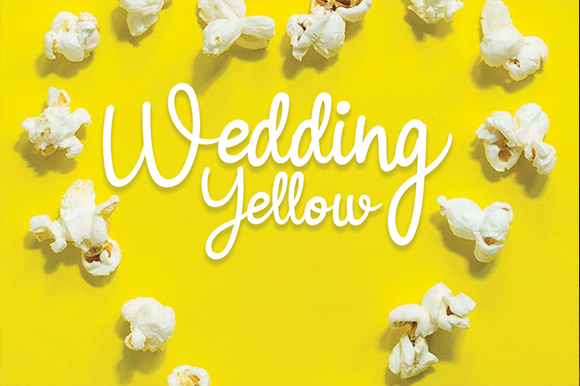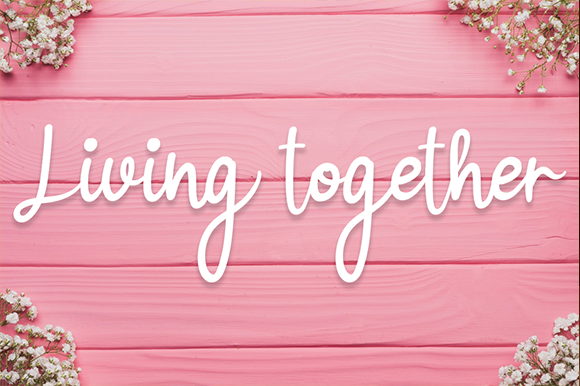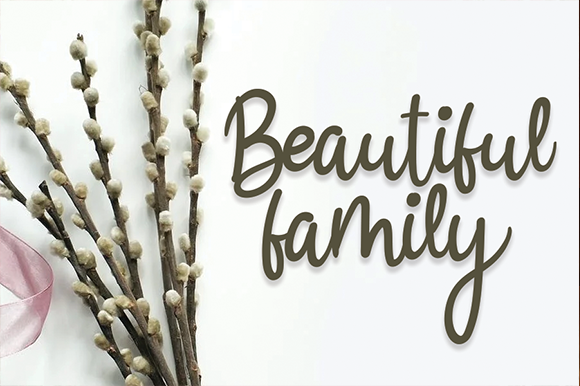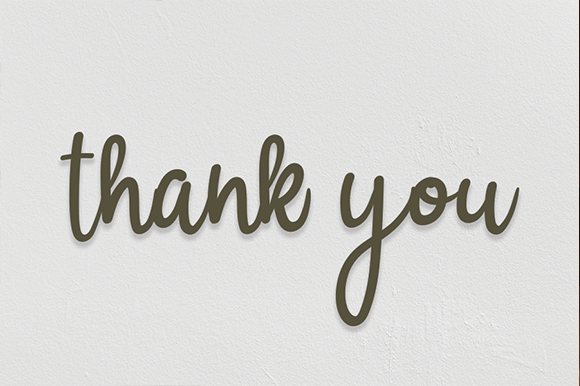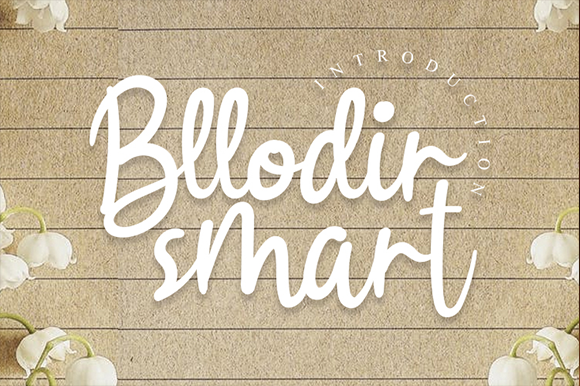
Unleash Your Creativity with the Perfect Handwritten Font
Have you ever stared blankly at your computer screen, searching for the perfect font to bring your creative idea to life? We’ve all been there. Maybe you’re planning a new Instagram post, designing a custom wedding invitation, or crafting a DIY project that requires a touch of personality. Whatever your creative pursuit, you need a font that speaks to your audience and showcases your unique style.
Enter Bllodir Smart Font, a delightful and casual handwritten font that’s sure to capture the hearts of your viewers. With its friendly feel and versatility, this font is perfect for designers looking to add a personal touch to their projects. Whether you’re a seasoned pro or just starting out, Bllodir Smart Font is a valuable addition to your design toolkit.
Bllodir Smart Font Key Features
- Font Family: Bllodir Smart Font is a highly customizable font family, offering a wide range of styles and weights, including Thin, Light, Regular, Medium, Bold, and Black.
- Unique Characteristics: Bllodir Smart Font features a unique blend of modern and traditional design elements, making it an ideal choice for a wide range of applications, from corporate branding to editorial and creative projects.
- Scalability: Designed to be highly scalable, Bllodir Smart Font remains clear and legible even at small font sizes, making it perfect for digital and print applications.
Bllodir Smart Font Review
Overall, I’m impressed with the potential of Bllodir Smart Font. Here are a few things that work well: ✨
- Unique and modern design: Bllodir Smart Font has a unique aesthetic that can add a touch of sophistication to any design.
- Highly customizable: The font offers a wide range of customization options, making it easy to adapt to different design needs.
- Legibility: Despite its modern design, Bllodir Smart Font is highly legible, making it suitable for a wide range of applications.
- Limited language support: Bllodir Smart Font currently only supports a limited range of languages, which may be a concern for designers working with international clients.
- Not ideal for body text: While Bllodir Smart Font is great for headings and titles, it may not be the best choice for body text due to its larger x-height and more dramatic letterforms.
Overall, I think Bllodir Smart Font has a lot of potential and is worth considering for designers looking for a unique and modern font. However, it’s essential to be aware of its limitations and use it judiciously to get the most out of it.
Bllodir Smart Font is ideal for:
- Designing modern and sleek text-based graphics.
- Creating eye-catching headings and titles.
- Adding a touch of sophistication to your documents and presentations.
For optimal results, use Bllodir Smart Font in conjunction with other modern design elements, such as clean lines, minimal color schemes, and plenty of negative space.